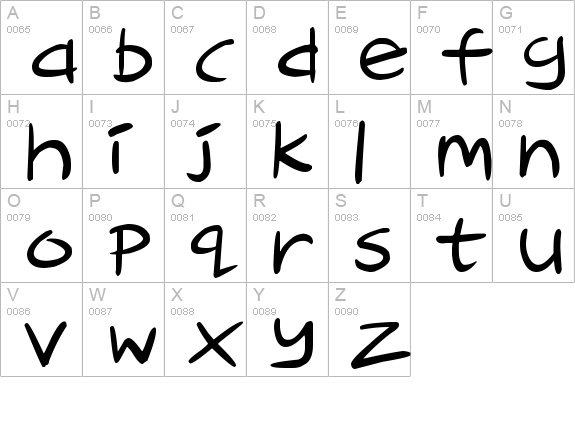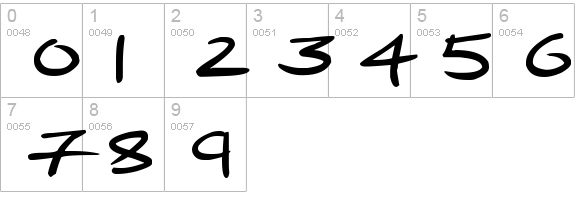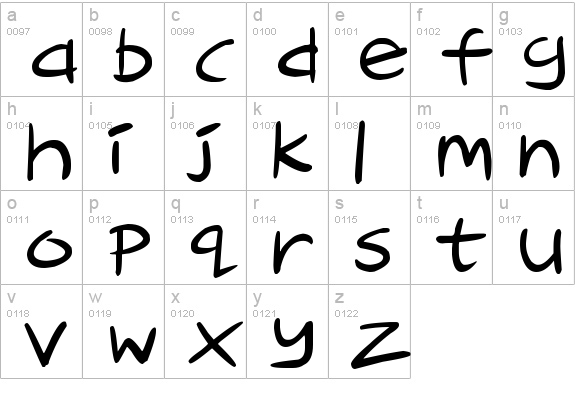
Cartoon Inkstrokes Font Details
Cartoon Inkstrokes font is a whimsical and playful typeface that brings a hand-drawn charm to your design projects. With its quirky and energetic strokes, this font is perfect for adding a touch of fun to any creative endeavor. The irregular lines and doodle-like appearance give Cartoon Inkstrokes a unique and engaging look that is sure to make your text stand out.